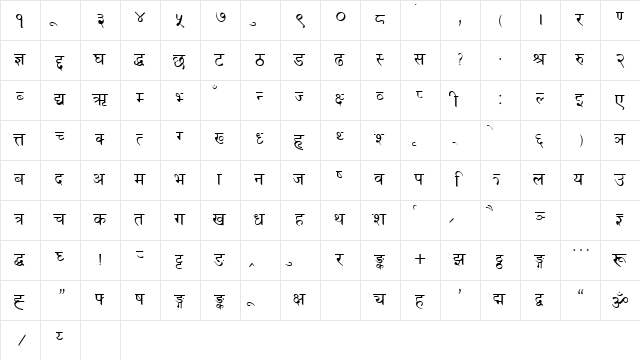
Himalaya Regular
Design Context for Himalaya Typeface
Himalaya is a composed and adaptable typeface that performs quietly and consistently across a wide range of design contexts.